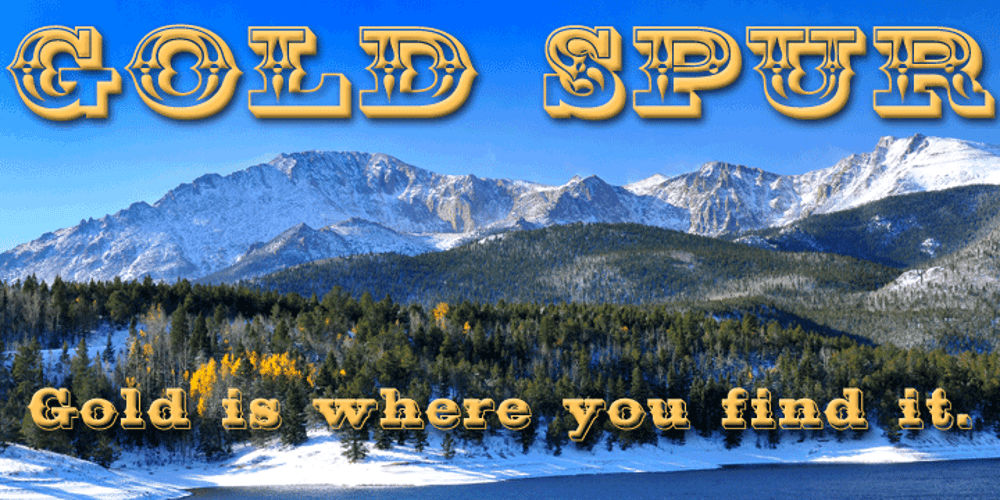
Gold Spur
Gold Spur font
Gold Spur Font Family was designed by Michael Hagemann and published by FontMesa. Gold Spur contains 4 styles and family package options. Gold Spur is a spurred version of the FontMesa Gold Rush set of fonts. Each version includes many extended characters for Western, Central and Eastern European countries. The Gold Spur Trail OpenType version has alternate double letter pairs included in the font and will automatically be substituted when used in Adobe CS products or other software that takes advantage of OpenType features. The $20.67 price of each font reflects the price of an ounce of gold in 1865 which was the year that the original Gold Rush font was created.